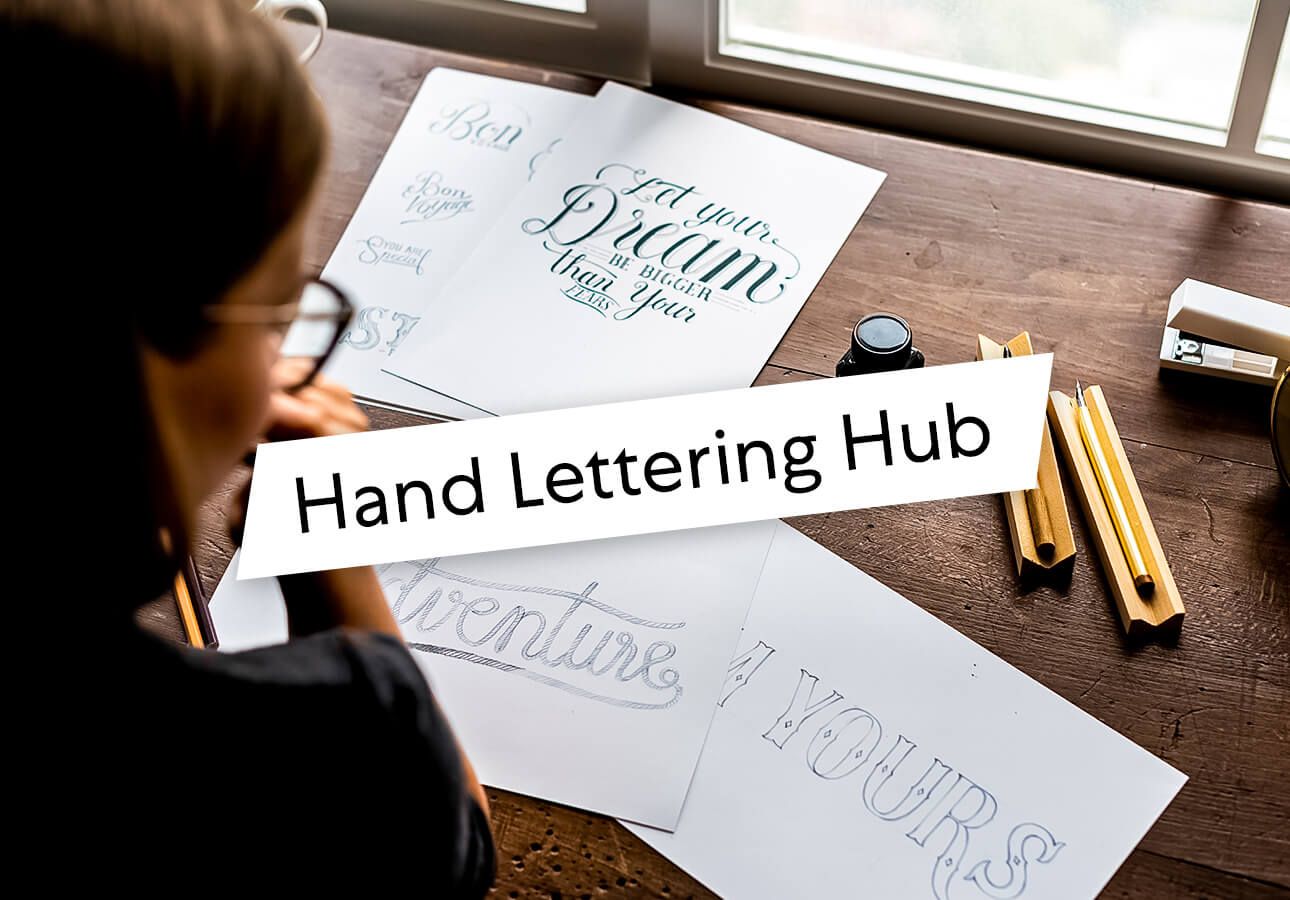
Have you ever wondered how to add a unique charm to your design projects? The answer lies in exploring the art of handlettering fonts. These fonts offer a personal touch and unique flair to any visual design, making your work stand out. Whether you’re a graphic designer or just venturing into creative typography, understanding hand lettering font styles can significantly elevate your projects. But where do you start, and how do you ensure the right fit for your aesthetic vision?
From classic designs to modern innovations, handlettering fonts encompass a range of styles that can be tailored to suit various projects. By learning how to effectively incorporate hand lettered fonts, you can transform ordinary designs into extraordinary works of art. Let’s dive into the world of typography and discover how handlettering fonts can enhance your creative endeavors.
Understanding Handlettering Fonts
What Makes a Font Handlettering?
Handlettering fonts mimic the art of hand-drawn letters, providing a personalized and artistic look. Unlike standard typefaces, these fonts capture the essence of individuality and creativity. The key characteristic of a handlettering font is its uniqueness, often characterized by irregular shapes and varying stroke widths that emulate the natural flow of handwriting.
These fonts are crafted to exude personality and emotion, making them ideal for projects that require a human touch. By using handlettering fonts, you bring warmth and character to your designs, setting them apart from more conventional typography.
History and Evolution of Handlettering Fonts
The history of handlettering fonts dates back to the early days of printing, where each letter was meticulously drawn by hand. As printing technology evolved, so did the styles and techniques of handlettering. Over time, these fonts have embraced both traditional and modern influences, merging vintage aesthetics with contemporary trends.
Today, the evolution of handlettering fonts continues to thrive, influenced by digital tools that allow designers to create intricate and diverse fonts. The resurgence of interest in handmade and artisanal designs has further fueled their popularity in both print and digital media.
Popular Styles of Handlettering Fonts
From elegant scripts to bold graffiti, handlettering fonts encompass a wide range of styles. Some popular styles include brush lettering, calligraphy, and chalkboard fonts. Brush lettering fonts mimic the fluid and expressive strokes of a paintbrush, while calligraphy fonts emphasize delicate and ornate details.
Chalkboard fonts, on the other hand, offer a rustic and playful vibe, perfect for casual designs. By exploring various hand lettering font styles, you can find the perfect match for any project, adding the desired mood and tone.
Choosing the Right Handlettering Font for Your Project
Factors to Consider in K3 Selection
When selecting the perfect handlettering font for your project, consider factors such as legibility, style, and context. The font should complement your design without overpowering the overall aesthetic. Legibility is crucial, especially if the font will be used in smaller sizes or longer text blocks.
Additionally, think about the message you want to convey. A playful script might suit a children’s book, while a more refined calligraphy font could be ideal for wedding invitations. Ensure that the font aligns with your project’s purpose and audience.
Matching K4 with Brand Aesthetics
Aligning a handlettering font with your brand’s aesthetics is essential for maintaining a consistent identity. Consider your brand’s values and personality when choosing a font. A luxury brand might opt for an elegant script, while a tech startup could benefit from a modern, clean handlettering font.
Your typography should reflect your brand’s tone, ensuring that all visual elements work harmoniously together. By carefully selecting a font that matches your brand aesthetics, you reinforce brand recognition and customer connection.
Tips for Pairing K5 with Other Fonts
Pairing handlettering fonts with other typefaces requires a keen eye for balance and contrast. A common approach is to use a handlettering font for headings or key elements, while pairing it with a simple, legible sans-serif or serif font for body text.
Consider the visual hierarchy and ensure that the fonts complement rather than compete with each other. Experiment with different combinations to find the perfect pair that enhances your design’s readability and visual appeal.
Top Handlettering Fonts to Try
Classic K2 for Timeless Appeal
Classic handlettering fonts like K2 offer a timeless and elegant appeal, perfect for projects requiring a touch of sophistication. These fonts are reminiscent of traditional calligraphy, with graceful curves and intricate details that capture the essence of classic design.
Using K2 in your projects can evoke a sense of history and tradition, making it an excellent choice for formal occasions, luxury brands, or any design that benefits from a refined aesthetic.
Next Steps
To continue enhancing your designs with handlettering fonts, regularly explore new styles and stay updated with typography trends. Practice pairing fonts and experiment with different design contexts to refine your skills. As you grow more familiar with handlettering fonts, you’ll develop an intuitive sense for selecting and applying them effectively, ensuring your projects remain fresh and engaging.